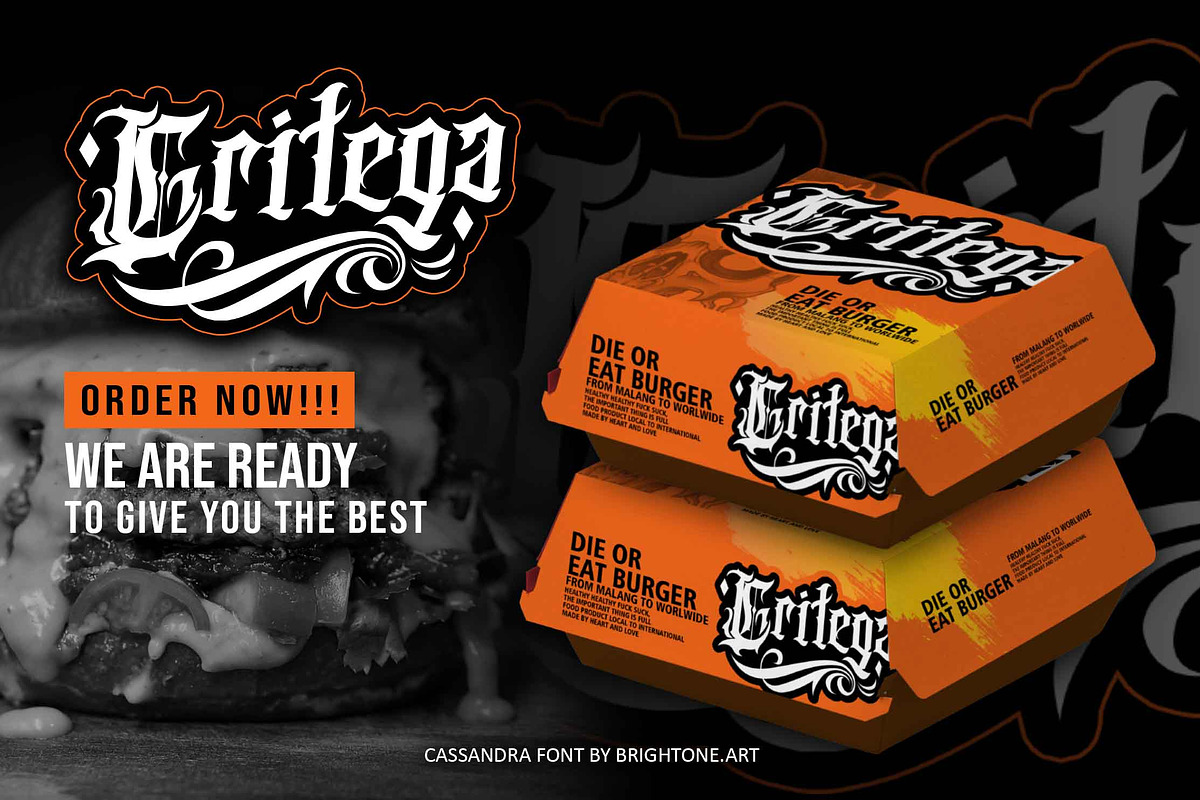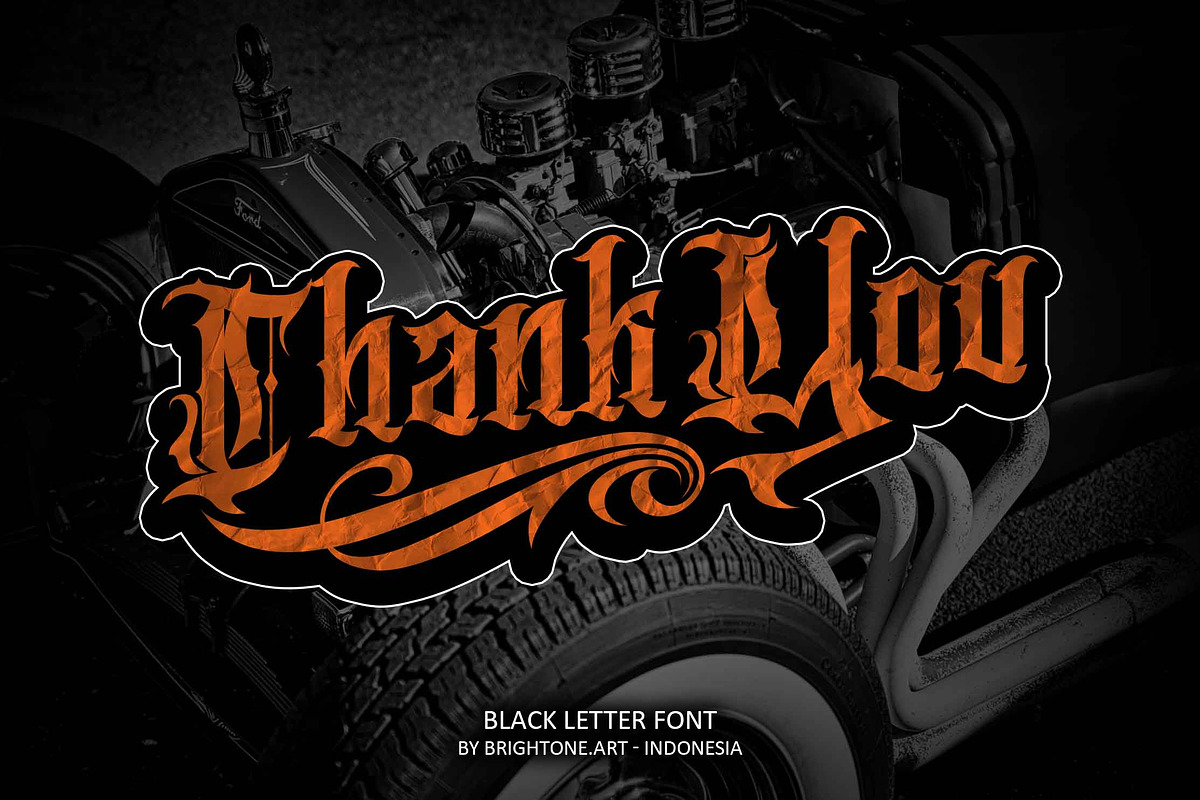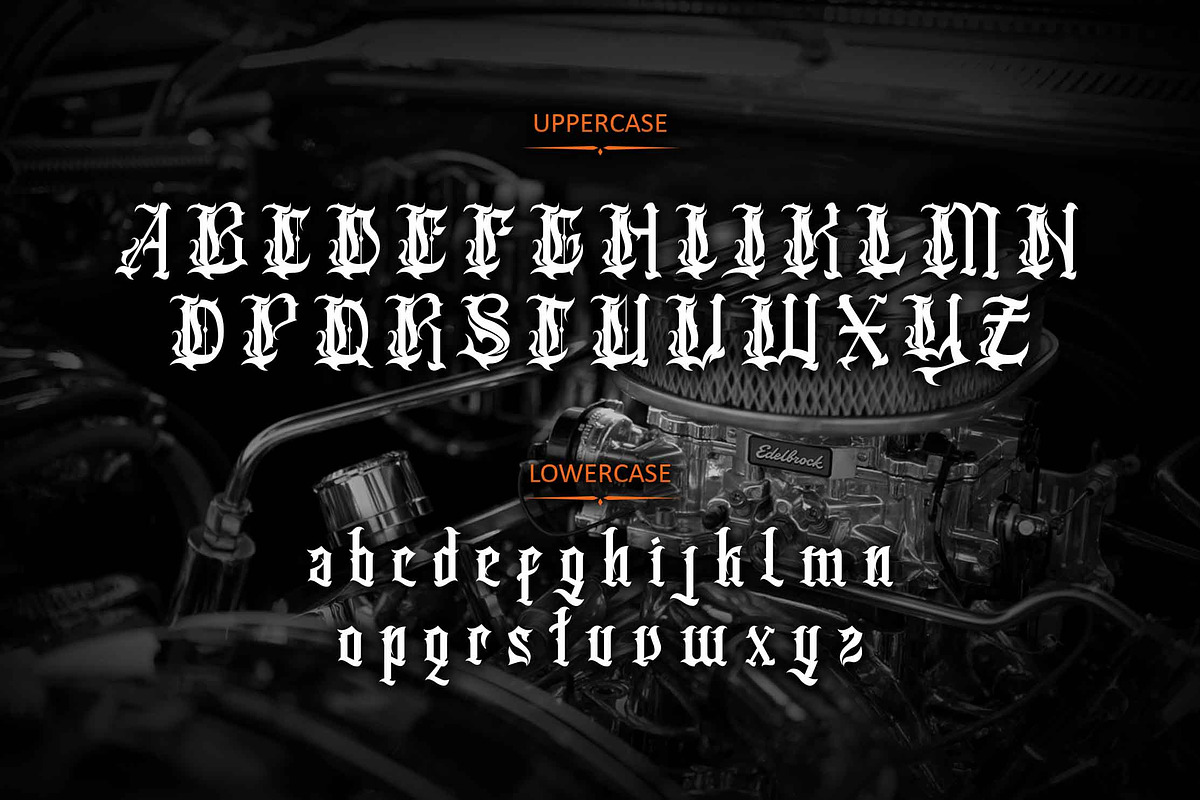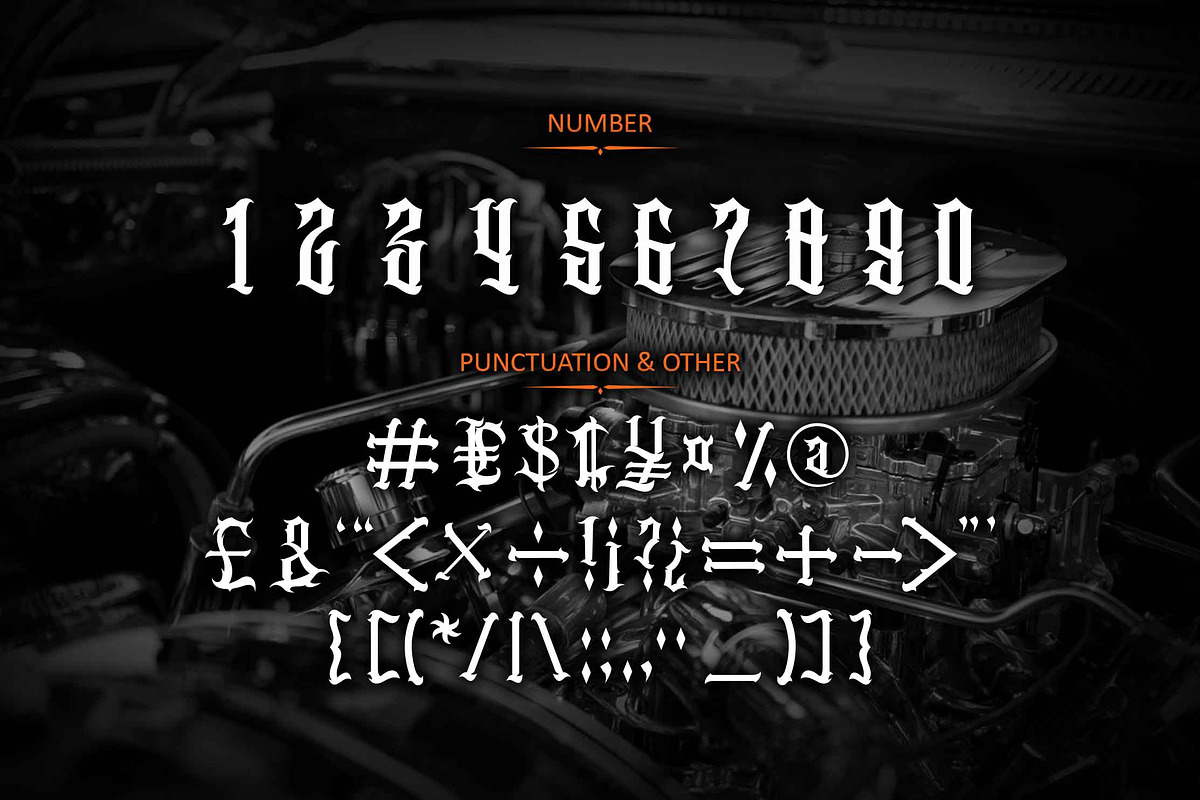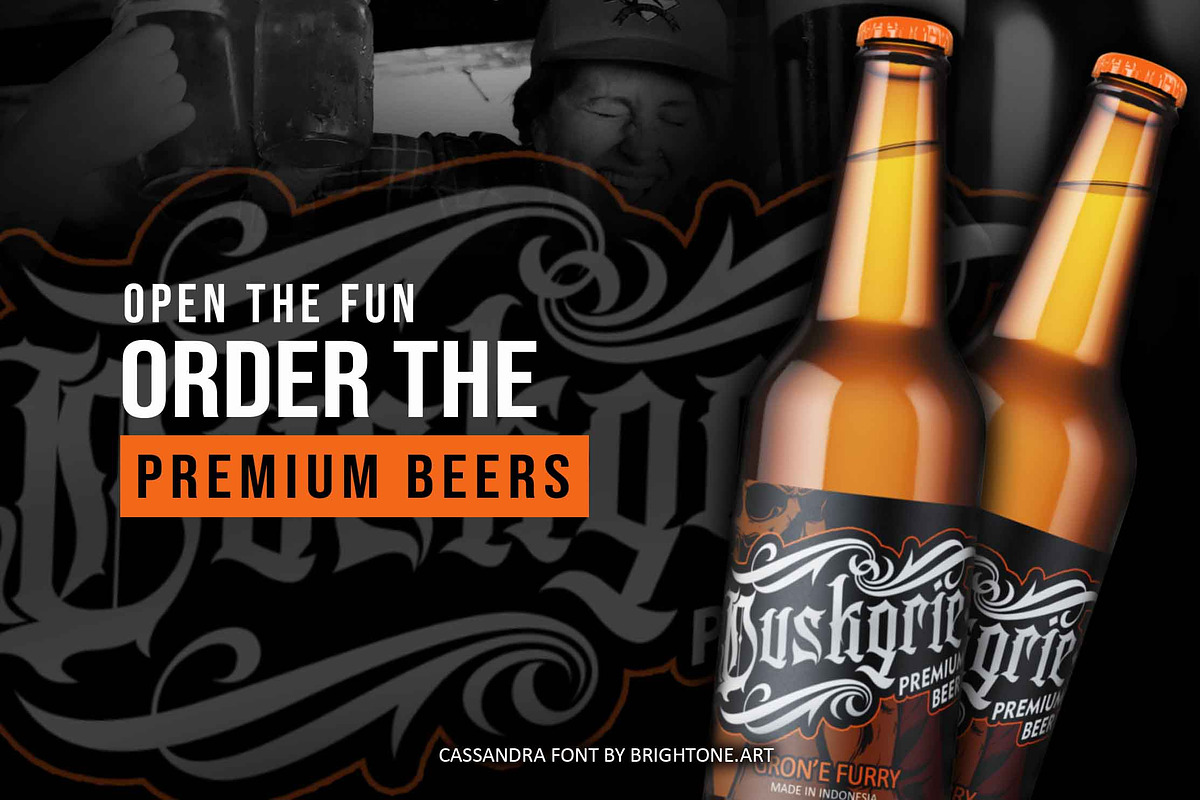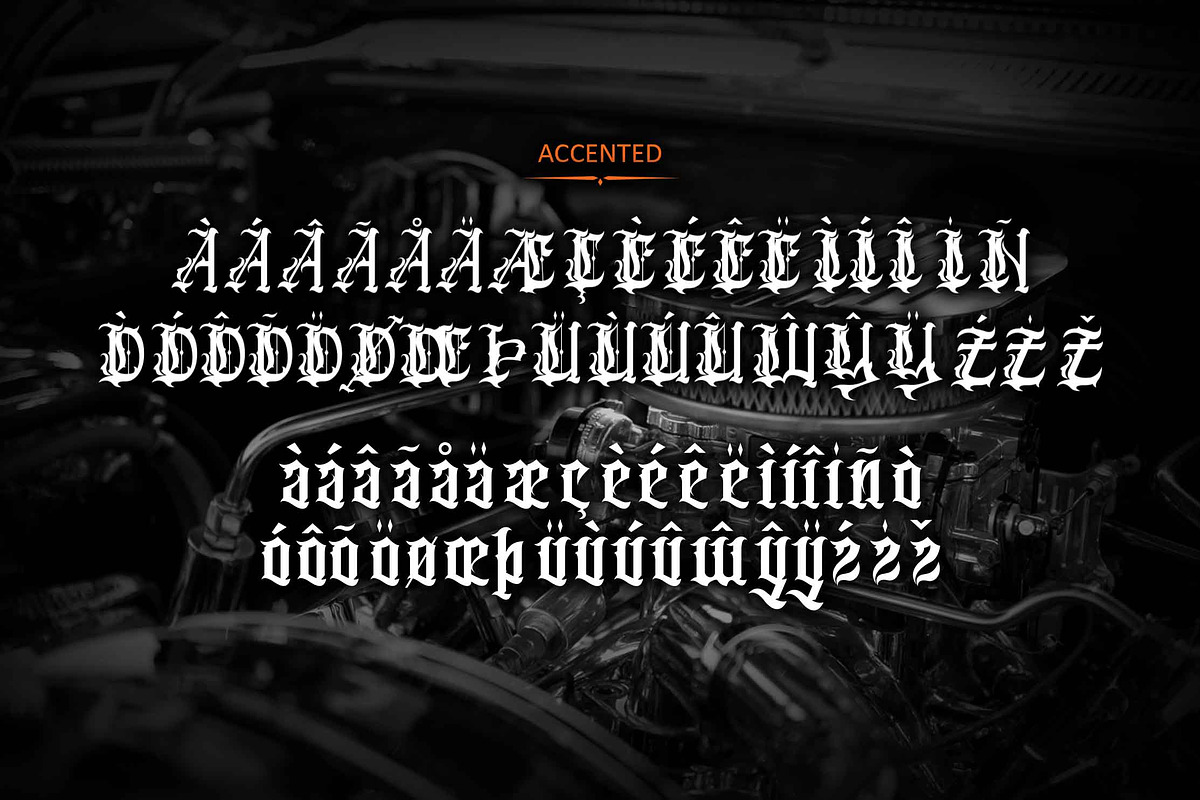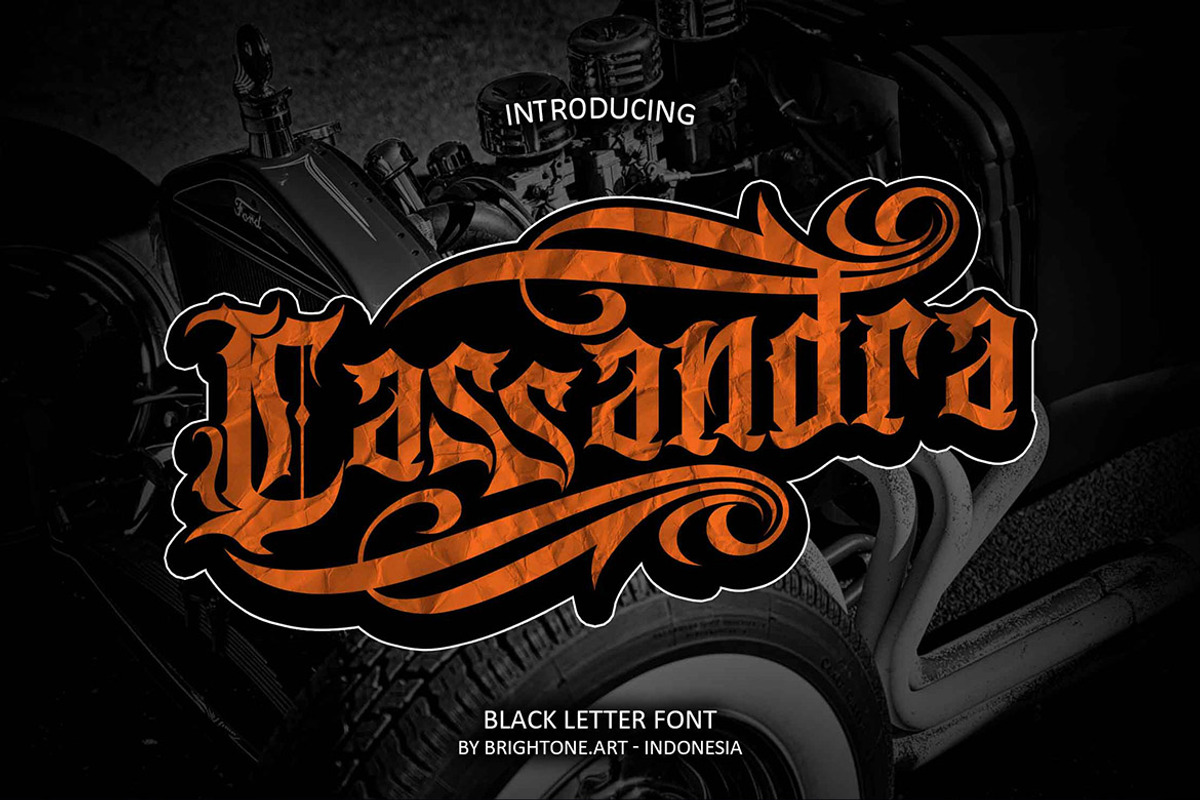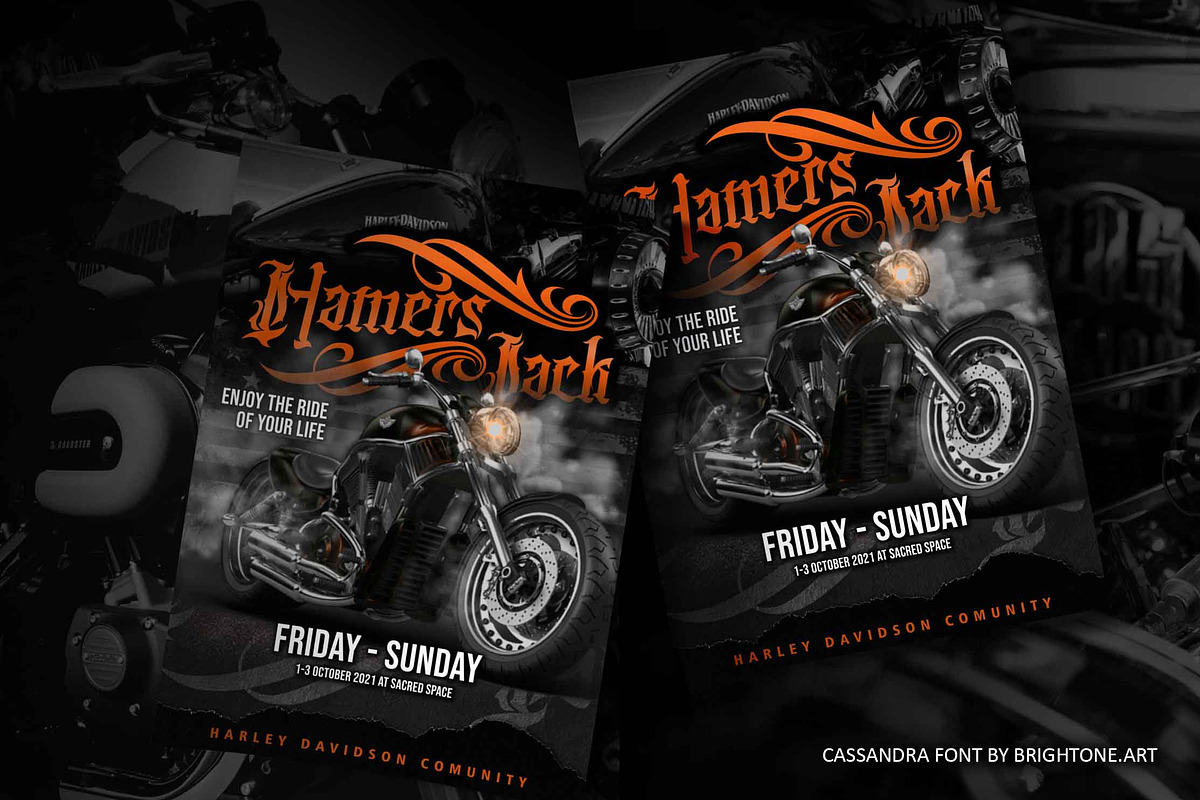
Cassandra - Blackletter Tattoo
CASSANDRA is blackletter tattoo font includes uppercase letters, numerals, a large range of punctuation and accented. Professional blackletter font with tattoo style for your logo lettering, shirt design, logo tattoo studio, tattoo design, branding, etc